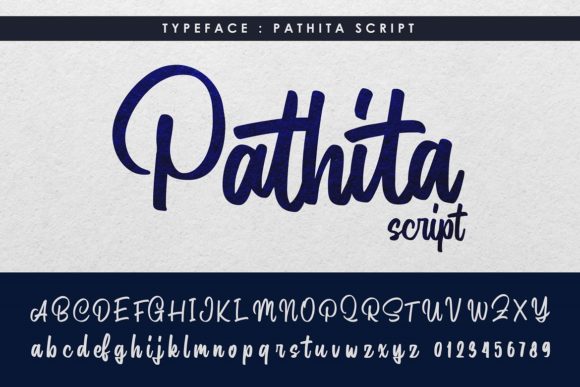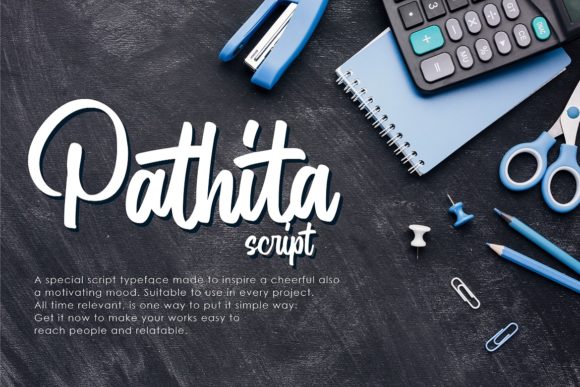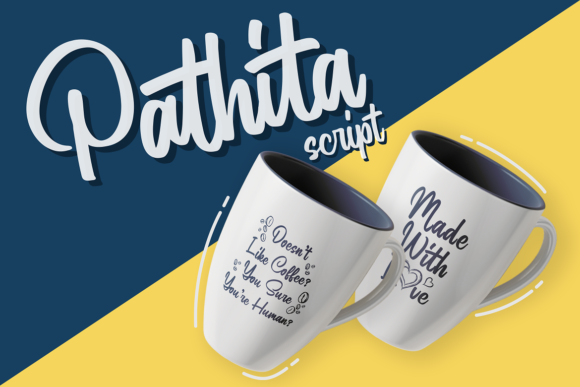
Introduction to Pathita Font
Have you ever stared at a blank canvas, eager to bring your creative vision to life? That’s exactly where the magic happens, and sometimes all it takes is the right design resource to set your imagination free. For designers, finding the perfect font can be a game-changer – and that’s where the Pathita Font comes in.
This elegant handwritten font is a treasure trove of inspiration, offering a unique blend of style and sophistication that’s sure to elevate any project. With its delicate touch and transparent background, Pathita Font is the perfect companion for your next creative endeavor. Whether you’re working on a design project or simply looking for a high-quality font to add some flair to your work, this font is an absolute must-have. And the best part? It’s available for free download, making it an invaluable resource for designers of all levels.
Key Features of Pathita Font
- High-quality design resource ideal for creative projects, offering a transparent background for seamless integration.
- Unique, elegant design suitable for a wide range of creative projects, from branding to editorial content.
Honest Review: Pathita Font
As a designer, I’m always on the lookout for high-quality design resources that can elevate my creative projects. The Pathita Font is one such resource that caught my attention. I decided to give it a try and share my honest review with you.
Here are some things that work well with the Pathita Font:
- ✨ Elegant and modern design aesthetic that makes it perfect for various creative projects.
- ✨ Supports various languages, including English, Spanish, and many more.
- ✨ Comes with a transparent background, allowing for seamless integration into your design.
- ⚠️ Limited font weights and styles, which might not be ideal for complex designs.
- ⚠️ Not ideal for use in small font sizes, as it can become difficult to read.
Overall, the Pathita Font is a solid addition to any designer’s toolkit. While it may not be perfect, its elegant design and free download make it a valuable resource for creative projects. I’d definitely recommend it to fellow designers looking for a high-quality, modern font.
Tips for Getting the Most Out of Pathita Font
To get the most out of the Pathita Font, use it for overlaying text on images or backgrounds. Experiment with different font sizes, colors, and styles to create unique and creative designs.
The Pathita Font is ideal for a variety of creative projects, including social media graphics, presentations, and marketing materials. Its transparent background and high-quality design make it perfect for overlaying text on images or backgrounds.